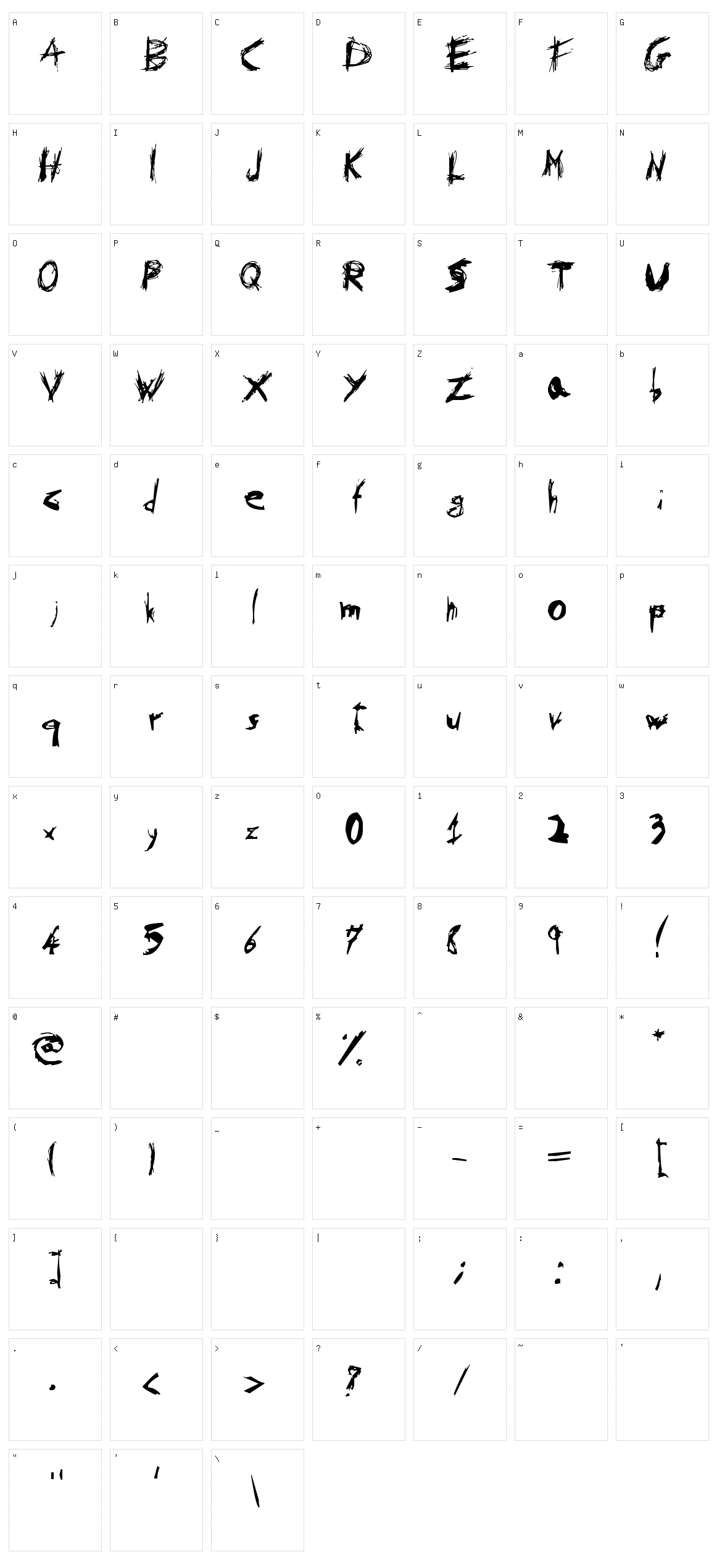
The free font Psychotika is carefully designed by TheDarkRequieM, showcasing a thoughtful balance of creativity and usability and falls under the Trash font style. When you download the ZIP file, it contains only 17.45 KB of font files, making it lightweight and quick to download. Please review the license details below to understand permitted usage and distribution rights. If license information is not available, we recommend using this font for personal projects only or contacting the author directly for commercial usage permissions.